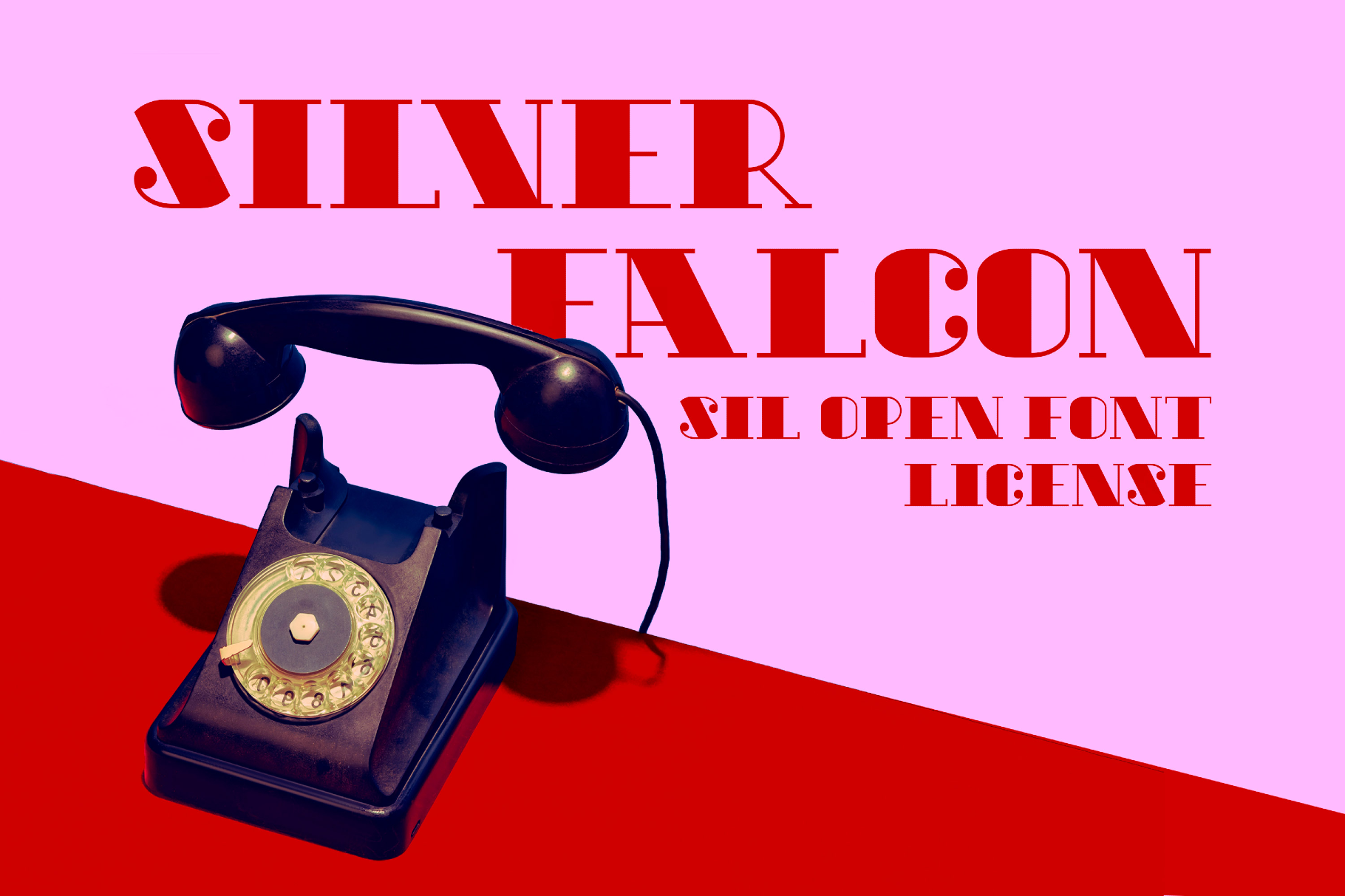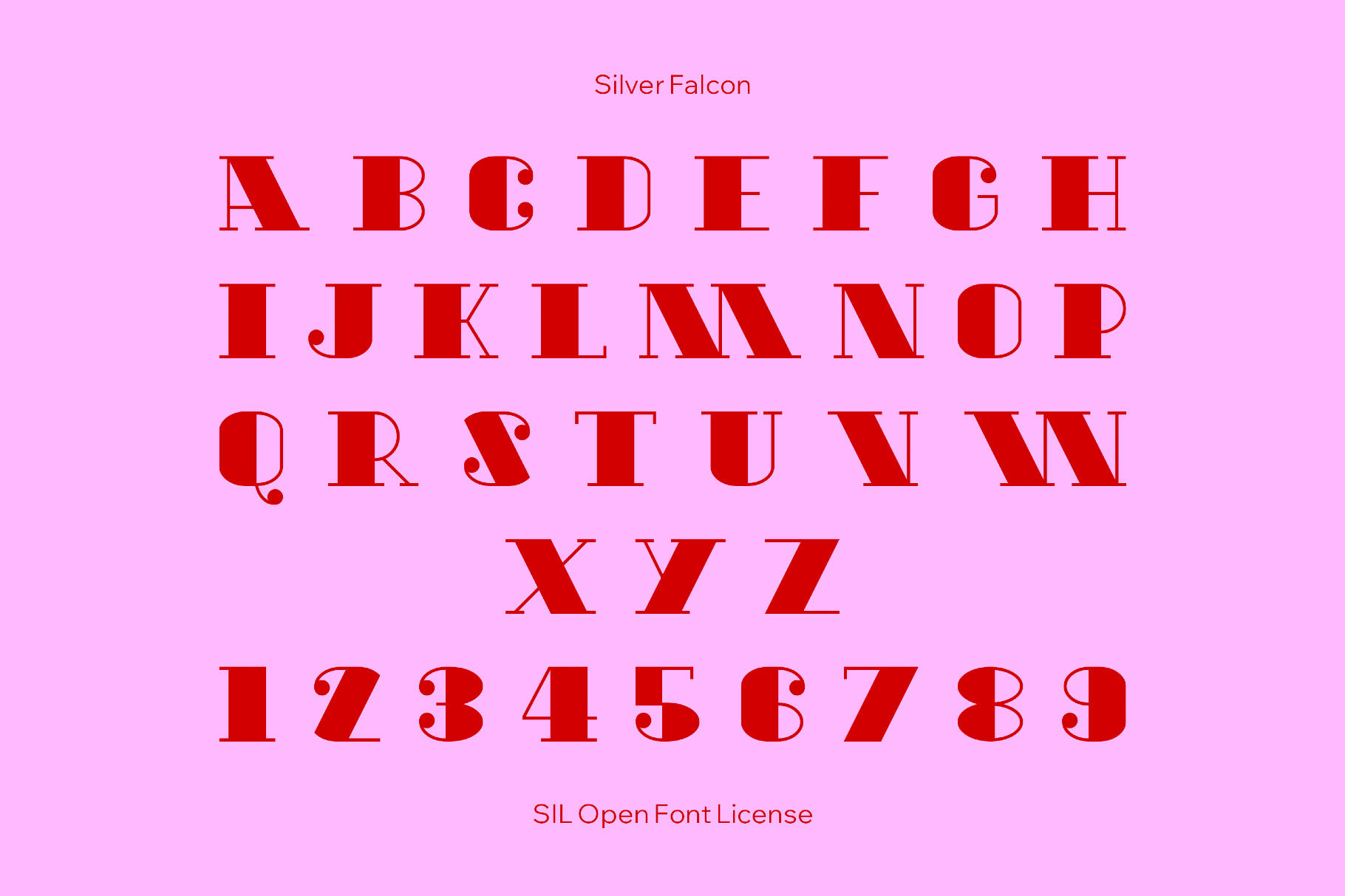
Silver Falcon Retro Type
SilverFalcon
Silver Falcon streaks across the page with angular strokes that look like 1980s arcade racers and aerospace badge lettering. This all-caps, angular font is ideal for esports logos, sci-fi game titles, action poster headlines, performance car decals, tech brand wordmarks, sports team merch, album covers, merchandise graphics, and social headers.
- Only uppercase letters A–Z.
- Multilingual support across extended Latin scripts.